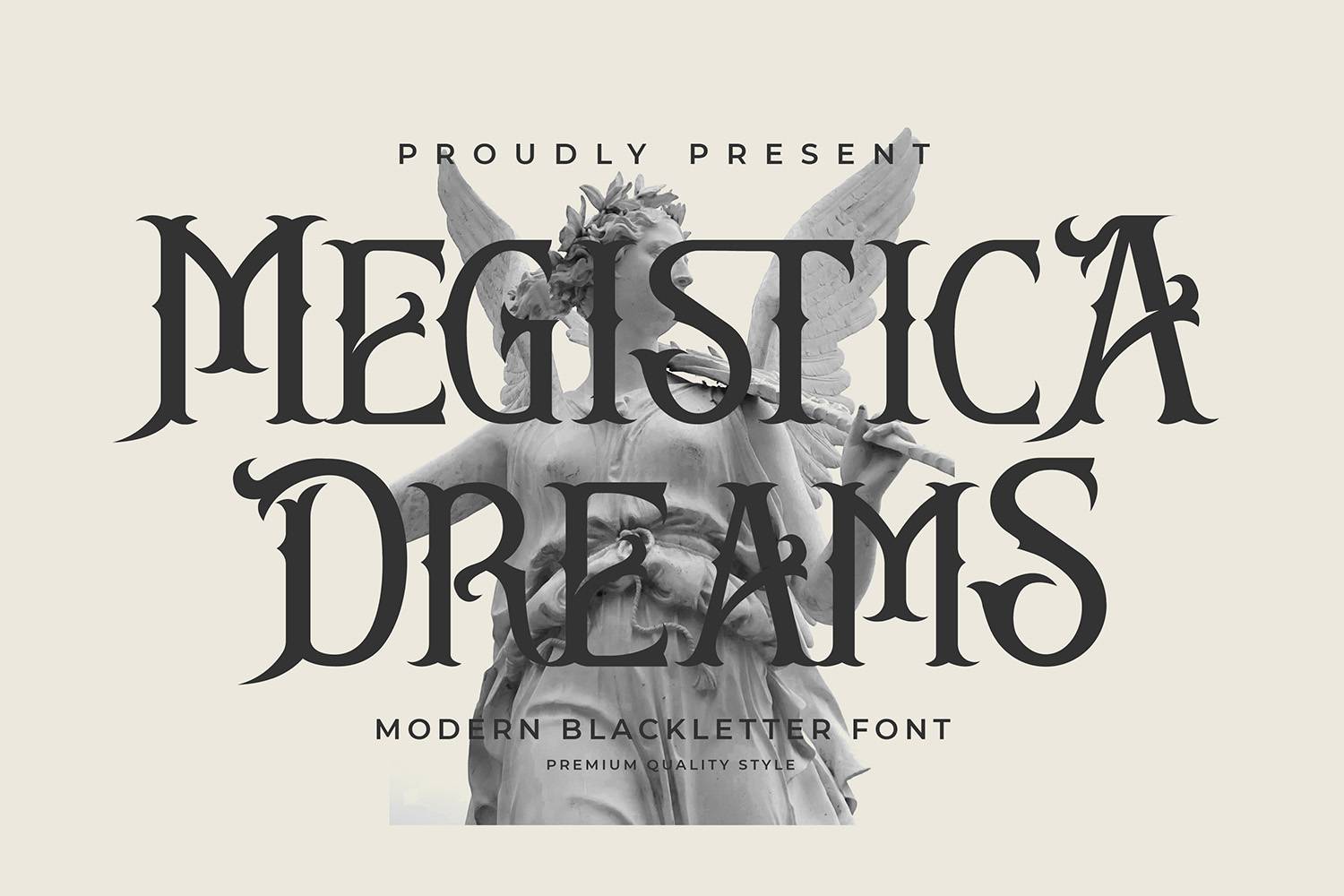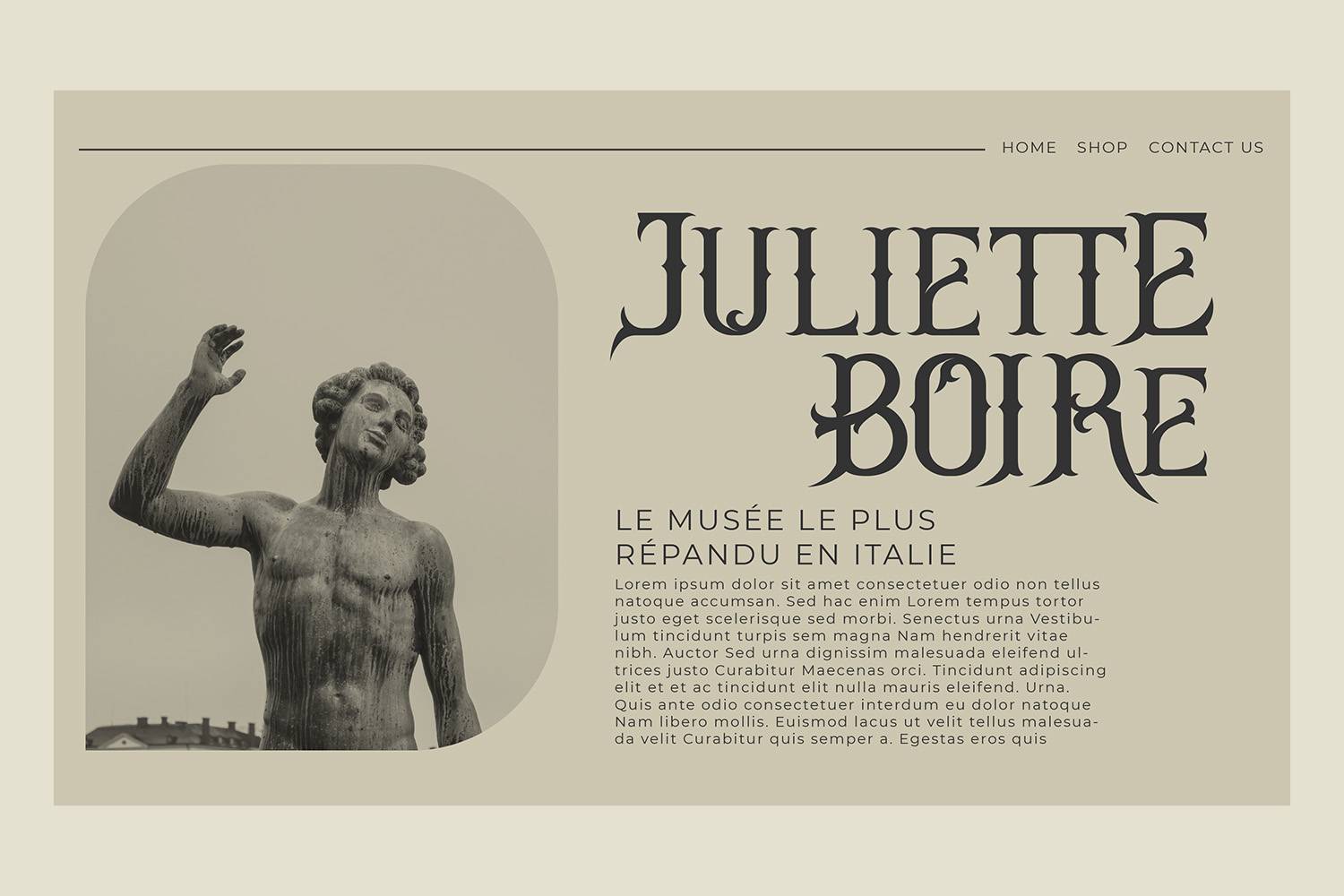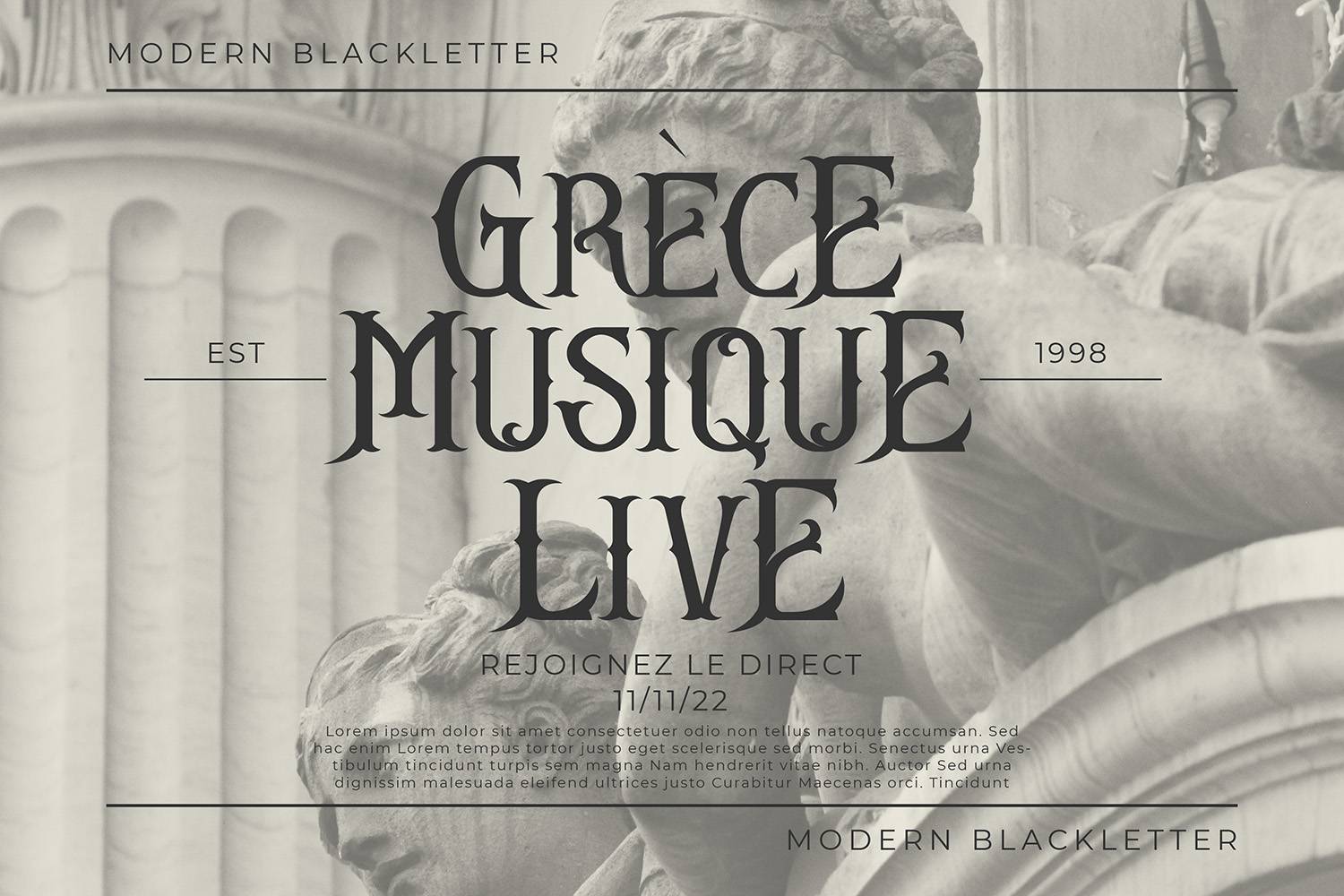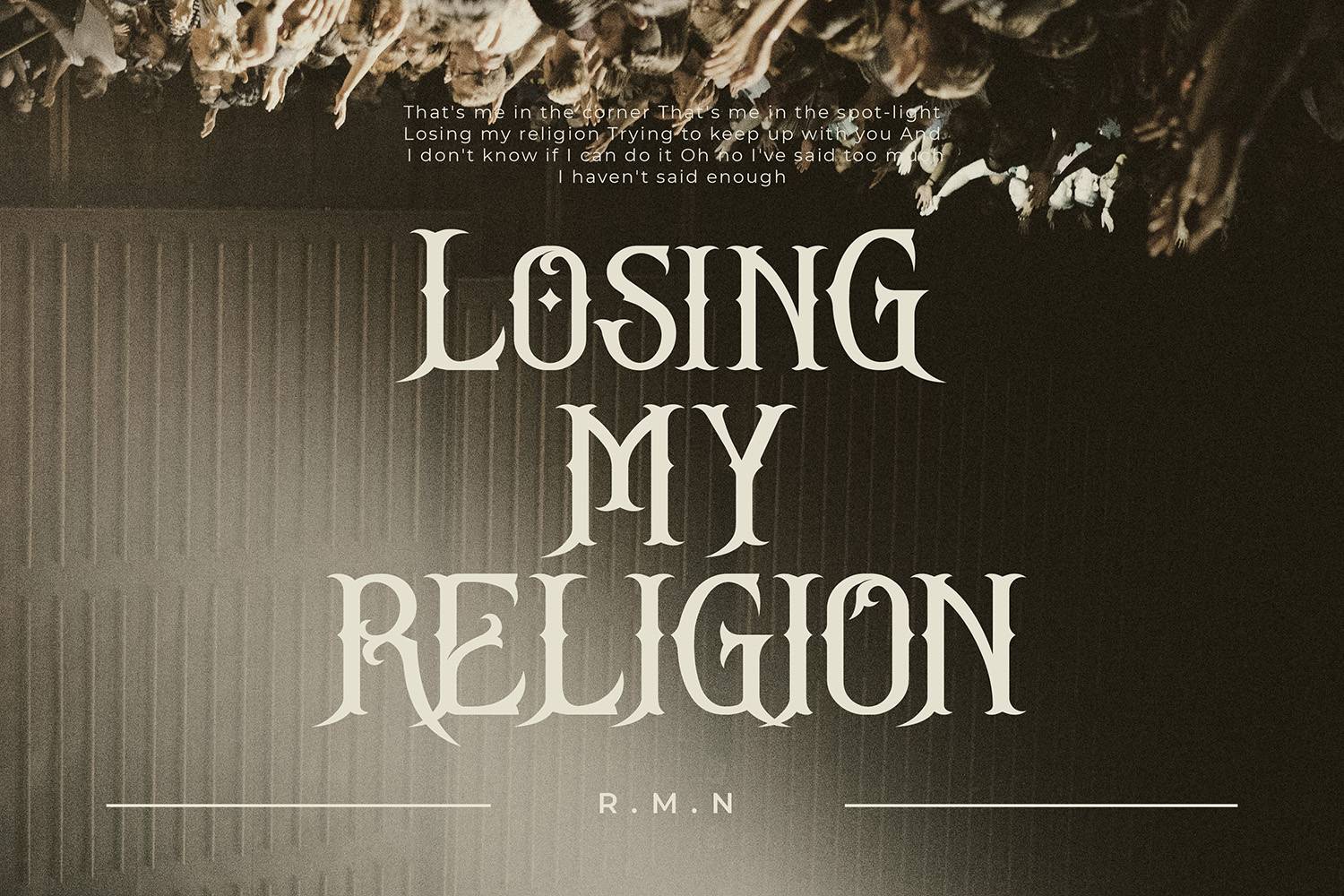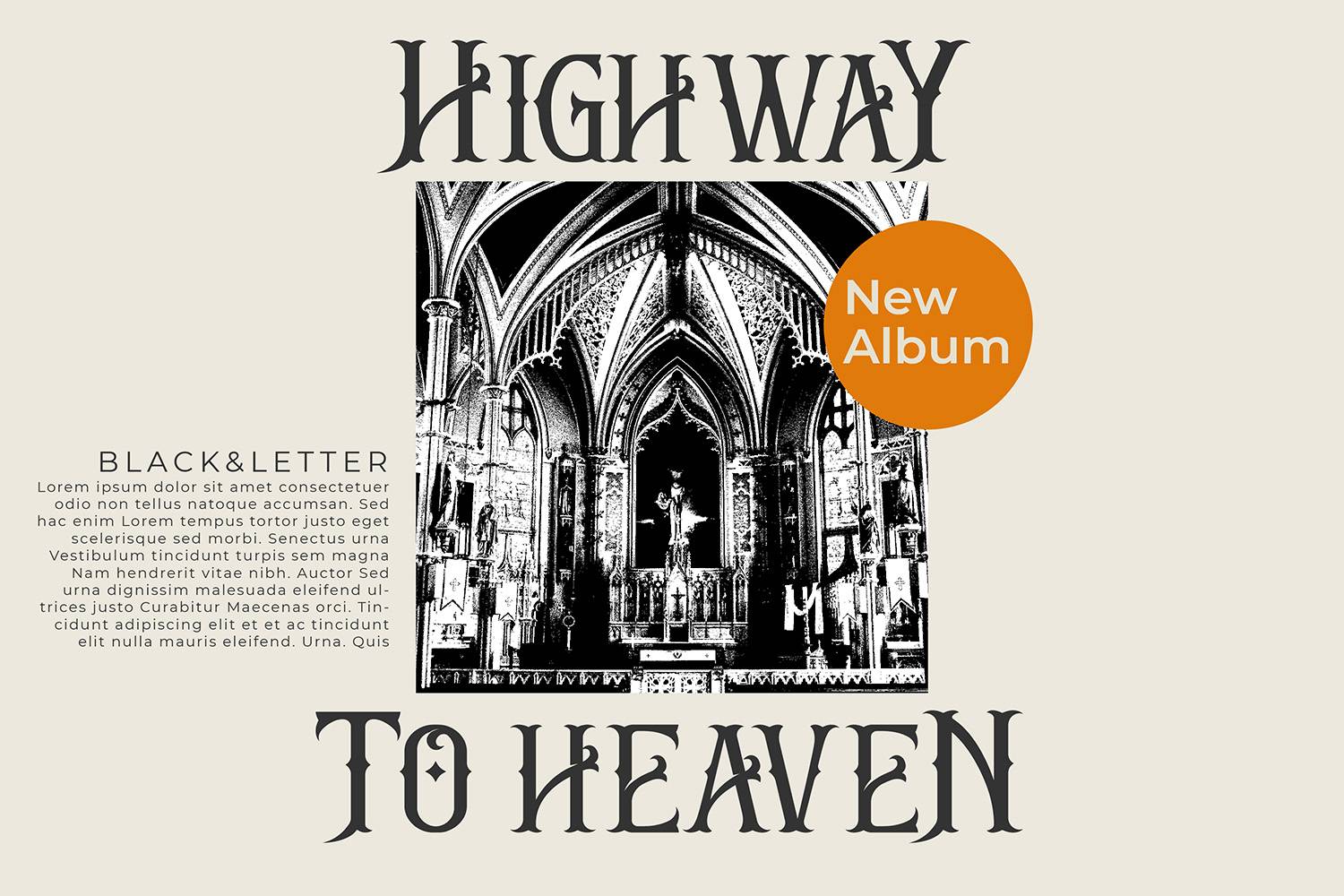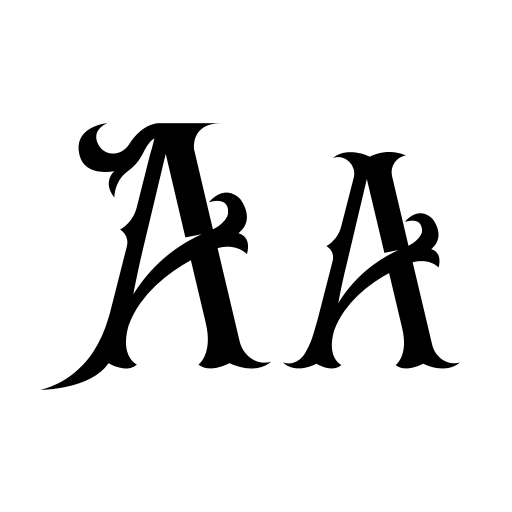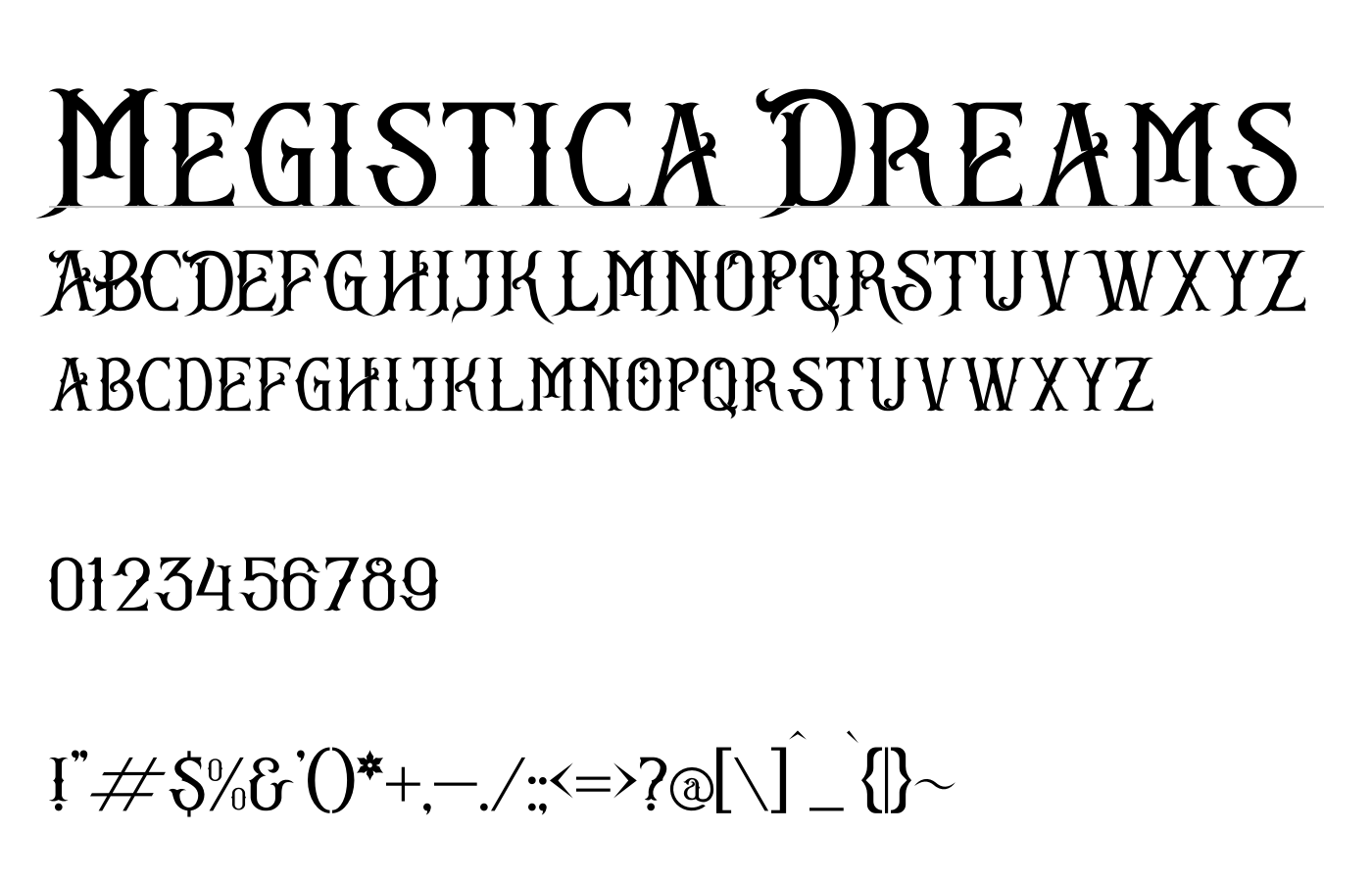
Megistica Dreams is a decorative serif font with a gothic and vintage feel, characterized by tall, narrow letterforms and sharp, pointed serifs accented with fluid, ornate details. Its high contrast between thick and thin strokes and unique stylized elements give it a dramatic and elegant personality, making it ideal for headlines, logos, and packaging in fashion, luxury, or creative branding. This font works best where a strong, mysterious, and sophisticated impression is desired.
Megistica Dreams Font
About Megistica Dreams Font